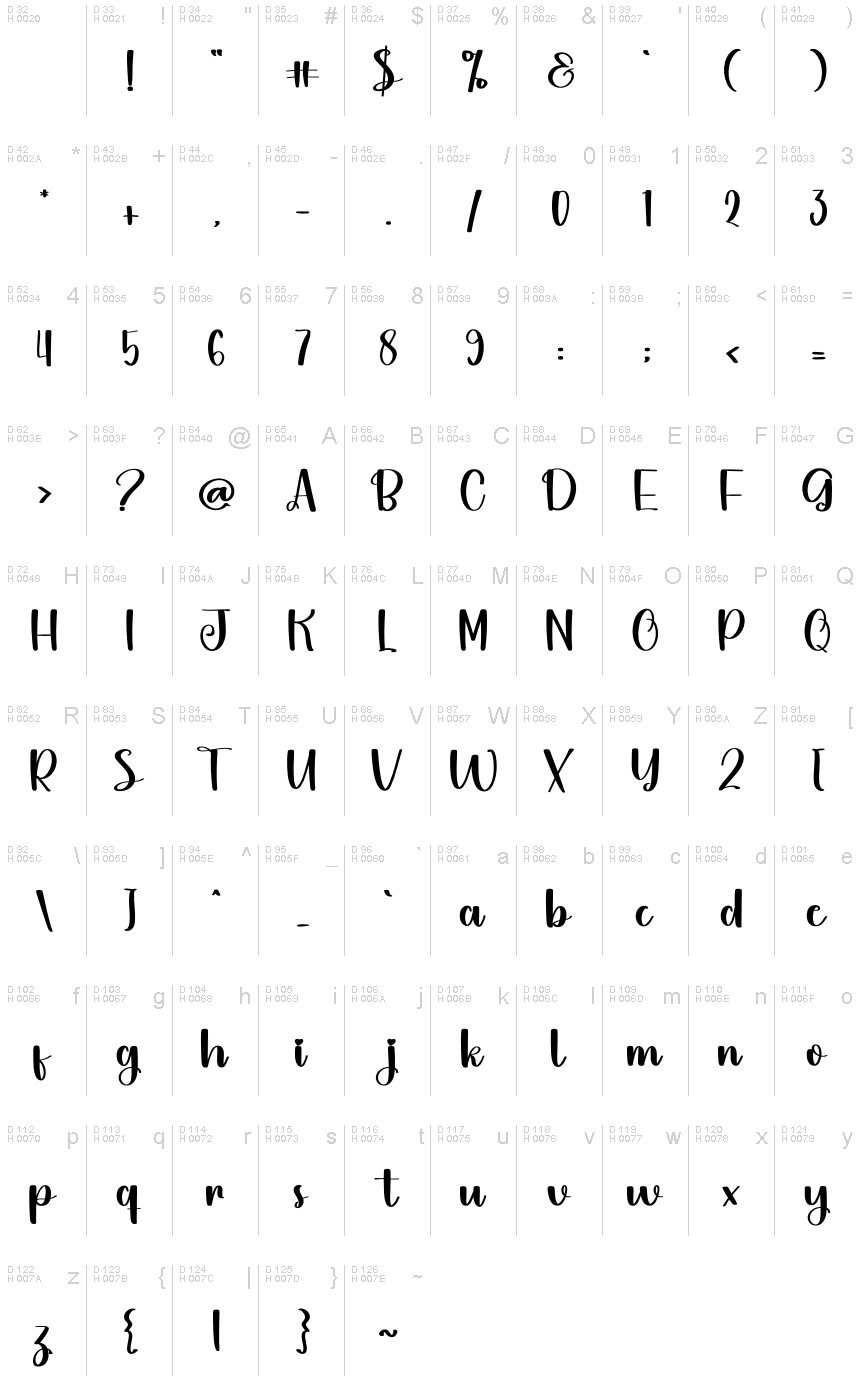
Homing
Homing, crafted by Inermedia Studio, exudes a delightful charm through its script style. This font features flowing, interconnected letters that weave together with effortless elegance. The playful curves and the heart-shaped accents add a whimsical touch, making Homing visually appealing and full of personality.
Perfect for projects that require a personal, handwritten feel such as wedding invitations, greeting cards, or boutique branding, Homing stands out in any design that needs a warm and inviting aesthetic. Its striking appearance ensures readability while infusing each letter with character and grace. Homing is not just a typeface; it's a statement of artistic expression.